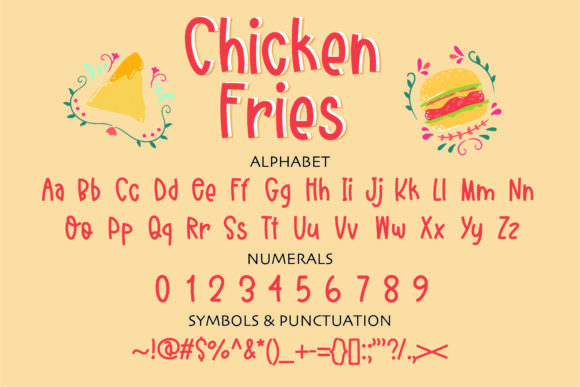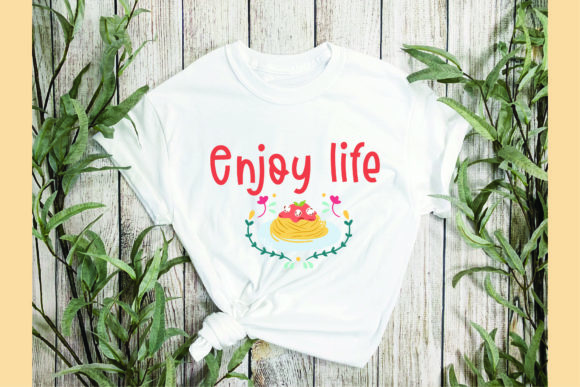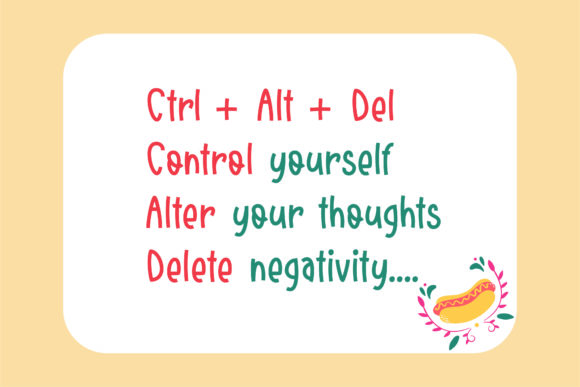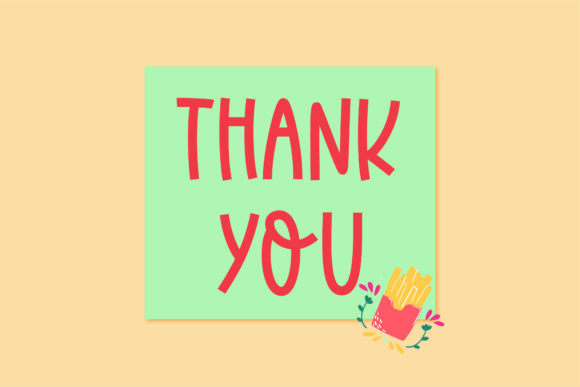
Introduction to Chicken Fries Font
Have you ever been working on a creative project, pouring your heart and soul into it, only to realize that the perfect font is missing? You know, that one font that will bring your design to life and transport your audience to a magical world? For designers, finding that elusive font can be a game-changer. And today, I’m excited to introduce you to a font that’s sure to become a favorite: the Chicken Fries Font.
This fun and playful handwritten font is a modern twist on traditional typography, offering a unique and whimsical style that’s perfect for adding a touch of personality to your designs. With its high quality and versatility, the Chicken Fries Font is a valuable design resource that’s sure to elevate your creative projects.
Key Features of Chicken Fries Font
- High-quality design resource ideal for creative projects, offering a unique and playful touch.
- Includes multiple font styles and weights, providing a range of design options for creative projects.
- Designed with a bold and modern aesthetic, making it perfect for headings, titles, and other prominent design elements.
Honest Review: Chicken Fries Font
I recently stumbled upon the Chicken Fries Font, and I must say it’s an interesting addition to any creative project. The font’s design is quirky and playful, making it perfect for brands or projects that want to stand out from the crowd.
- Unique design: The Chicken Fries Font has a distinct look that’s hard to find in other fonts.
- High-quality design: The font is well-crafted and has a high-quality feel to it.
- Limited character set: The font only includes a limited set of characters, which may be a limitation for some projects.
- Not suitable for formal projects: The font’s quirky design may not be suitable for formal or professional projects.
Overall, the Chicken Fries Font is a fun and creative design resource that can add a unique touch to any project. While it may have some limitations, it’s definitely worth considering for the right project.
The Chicken Fries Font is suitable for a variety of creative projects, including social media graphics, flyers, posters, logos, icons, presentations, and reports. Its high-quality design and transparent background make it a valuable design resource for designers and non-designers alike.